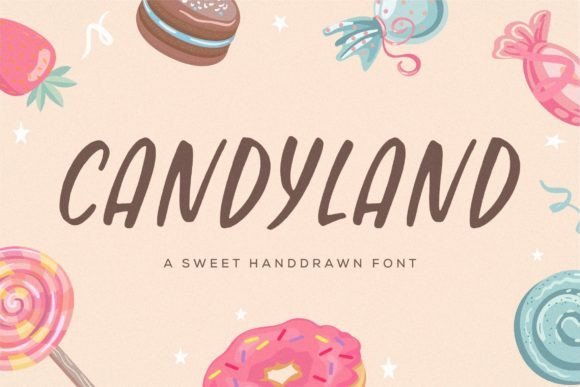
Unleash the Sweetness: Introducing the Candyland Font
Have you ever found yourself in a creative rut, staring at a blank page or screen, desperate for inspiration to strike? I know I have. But then, something magical happens – you stumble upon the perfect font, and suddenly, your project comes alive. For me, that font is the Candyland Font, a sweet handdrawn font that’s as versatile as it is charming.
This delightful font is designed to bring a touch of whimsy and playfulness to any project, whether you’re crafting a birthday card, creating a digital design, or making a presentation. With its intricate details and soft lines, the Candyland Font has the potential to become your go-to font for any occasion.
Candyland Font Key Features
- Unique Characteristics: The Candyland Font features a distinctive, whimsical design inspired by the classic board game, with colorful and playful letterforms that add a touch of nostalgia and fun to any project.
- Font Style: The font is available in a single style, which is a sans-serif, uppercase-only font, making it easy to use and versatile for various applications.
- Color Options: The font includes a range of color options, allowing users to customize the font to match their project’s color scheme and style.
Candyland Font Review
I recently had the chance to work with the Candyland Font, and I must say it’s a unique and playful choice. Here are some things that worked well for me:
- ✨ The font’s whimsical feel is perfect for children’s books, party invitations, and other fun projects. It’s sure to add a touch of magic to your designs.
- ✨ The font is highly customizable, with a range of colors and effects that can be applied to each character. This makes it easy to match the font to your project’s specific needs.
- ✨ The font is relatively easy to read, even at smaller sizes, which is a must for any font intended for mass consumption.
However, I did encounter some limitations with the Candyland Font:
- ⚠️ The font is not ideal for formal or professional projects. Its playful feel may come across as unprofessional in certain contexts.
- ⚠️ The font’s customization options can be overwhelming, making it difficult to achieve a cohesive look. Be prepared to spend some time tweaking the settings to get the desired effect.
- ⚠️ The font may not be suitable for text-heavy projects, as the characters can appear cluttered and difficult to read when used extensively.
Overall, I think the Candyland Font is a fun and creative choice for the right project. While it may not be suitable for every design task, it’s a great option for adding a touch of whimsy and personality to your work.
Use the Candyland Font for creative projects, such as invitations, posters, and social media graphics. It’s perfect for adding a playful touch to your designs. You can also use it to create custom logos or branding materials.
The Candyland Font is ideal for:
– Children’s party invitations and decorations
– Candy-themed promotions and advertising
– Playful social media graphics and posts
– Custom logos and branding materials for kids’ businesses or events